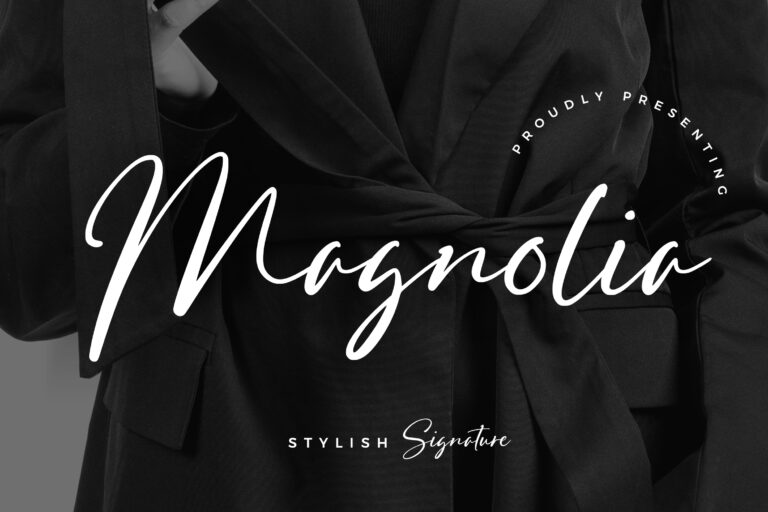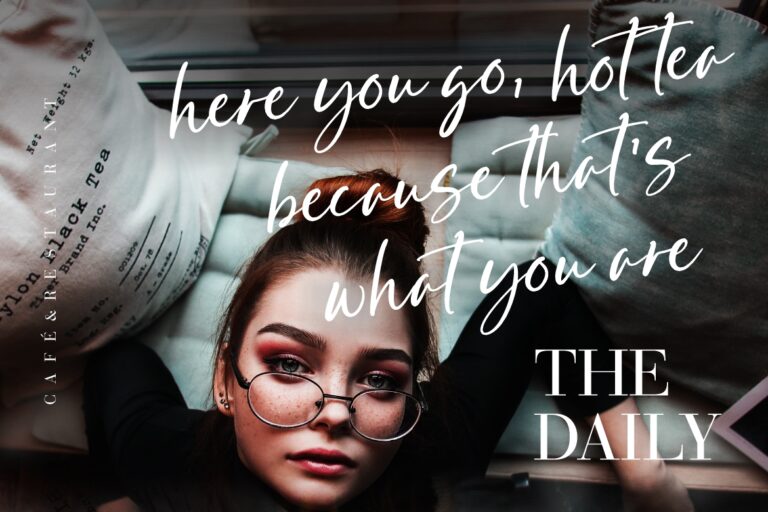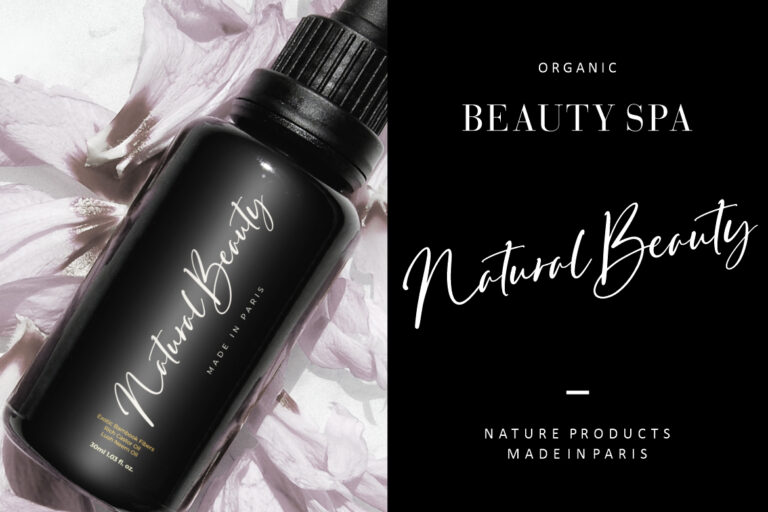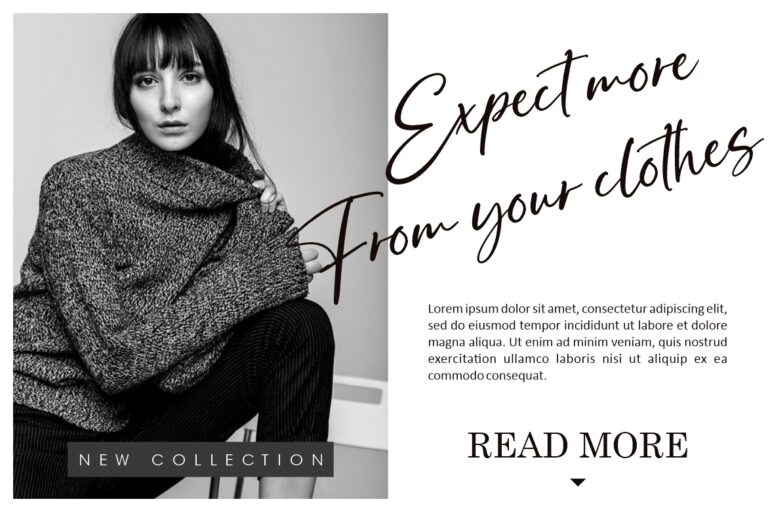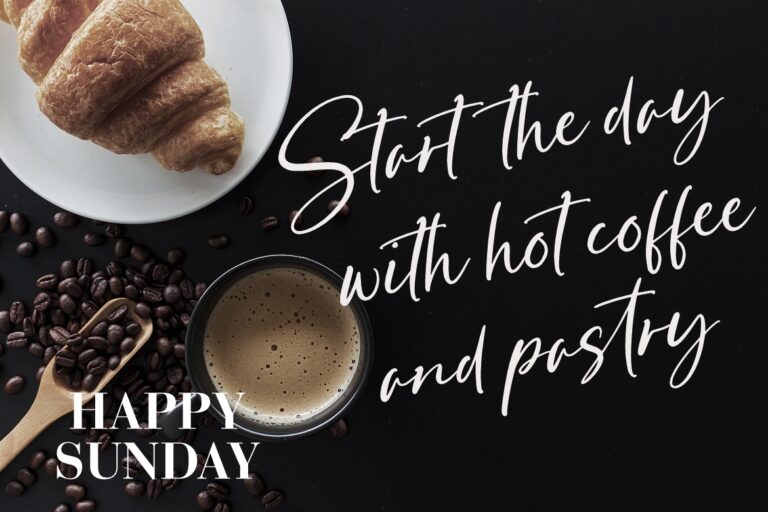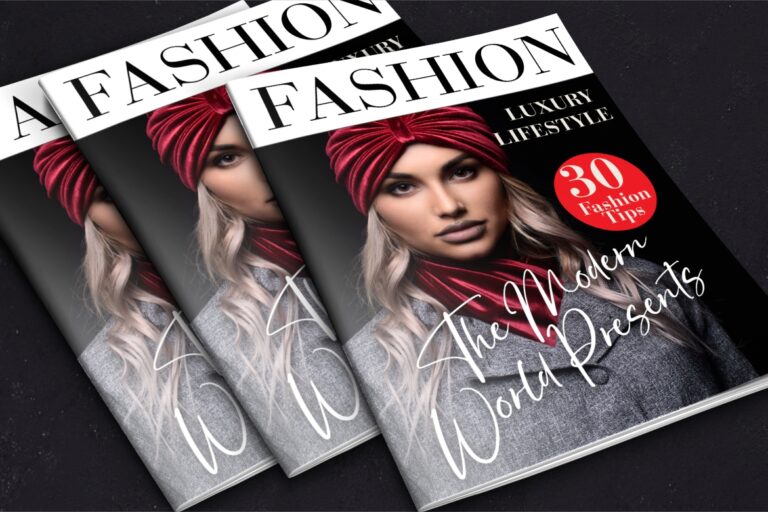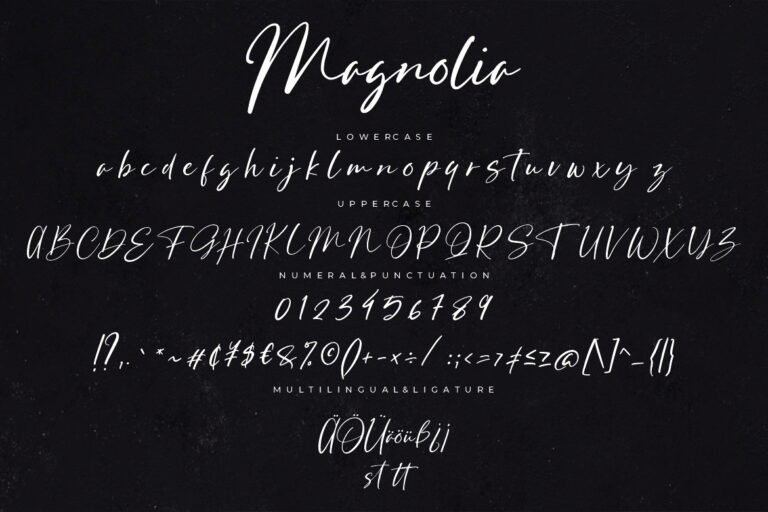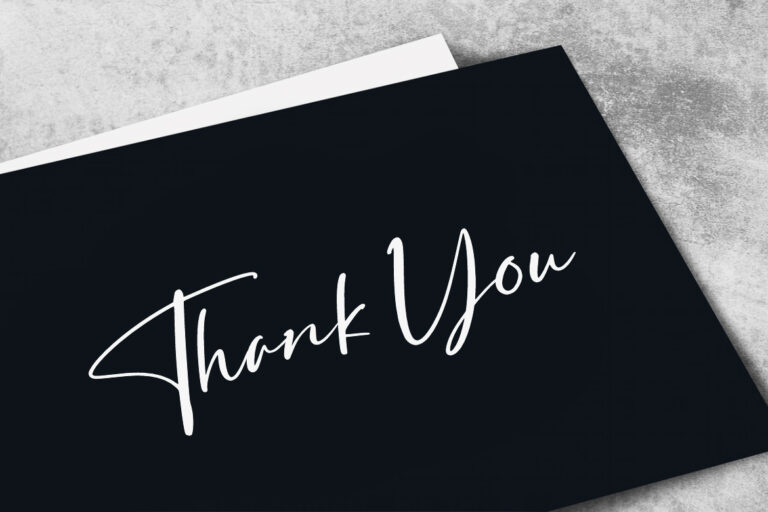
Magnolia Stylish Signature
Magnolia is stylish signature font with sophisticated and stylish handwritten.
Magnolia is perfect for branding projects, logo, wedding designs, social media posts, advertisements, product packaging, product designs, label, photography, watermark, invitation, stationery and any projects that need handwriting taste.
- Fonts include multilingual support for; ä ö ü Ä Ö Ü ß ¿ ¡